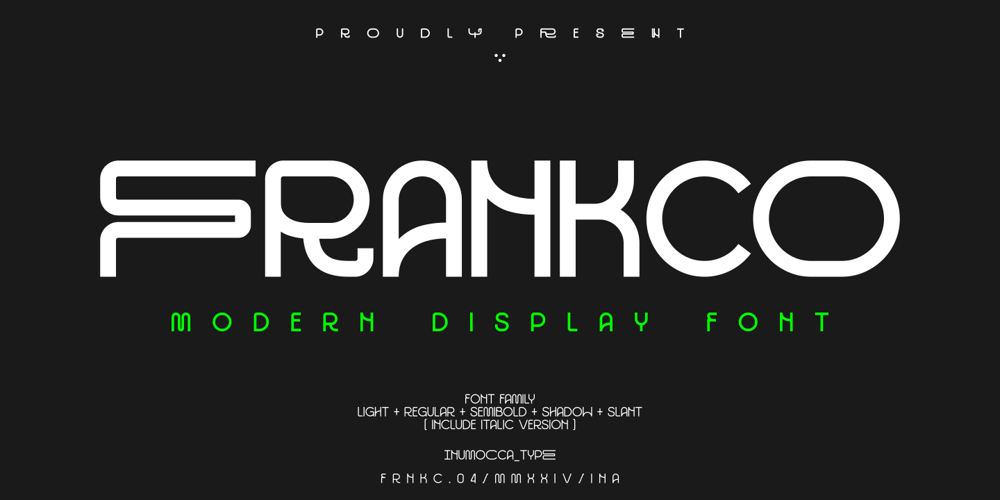
Frankco Font Family was designed by Inu Mocca and published by Inumocca. Frankco contains 8 styles and family package options. Frankco Modern Display font with 3 Weight and 2 other style variant,Modern Futuristic, Minimalist and unique Glyphs Construction.Inspiration from Synthwave, Mecha, Modern Technology, Sci-fi Movie Poster, science and Space Theme.Really great font to covering your Project, You can playing to change ghlyps with Stylistic feature.like Lettering, Website Interface, Magazine, Branding, Poster,Quotes Lettering, Logos, and more your project design.- Unique glyphs- Multilingual Characters- UPPERCASE- Lowercase- Numeric- Symbol- Punctuation Character- Stylistic AlternatesAvailable :- Frankco light + italic- Frankco Reguler + italic- Frankco Semibold + italic- Frankco Shadow- Frankco Slantinumocca type Studio